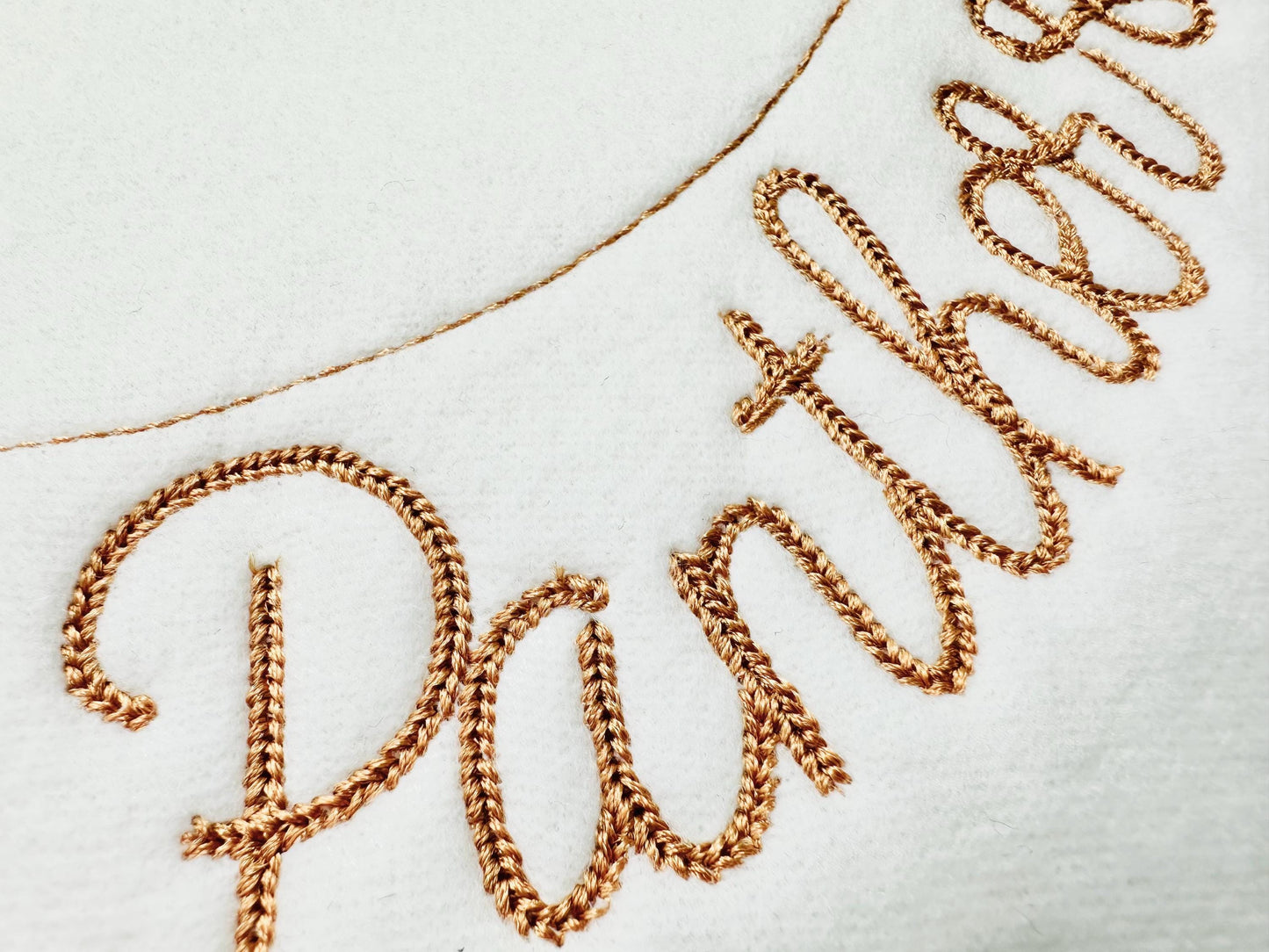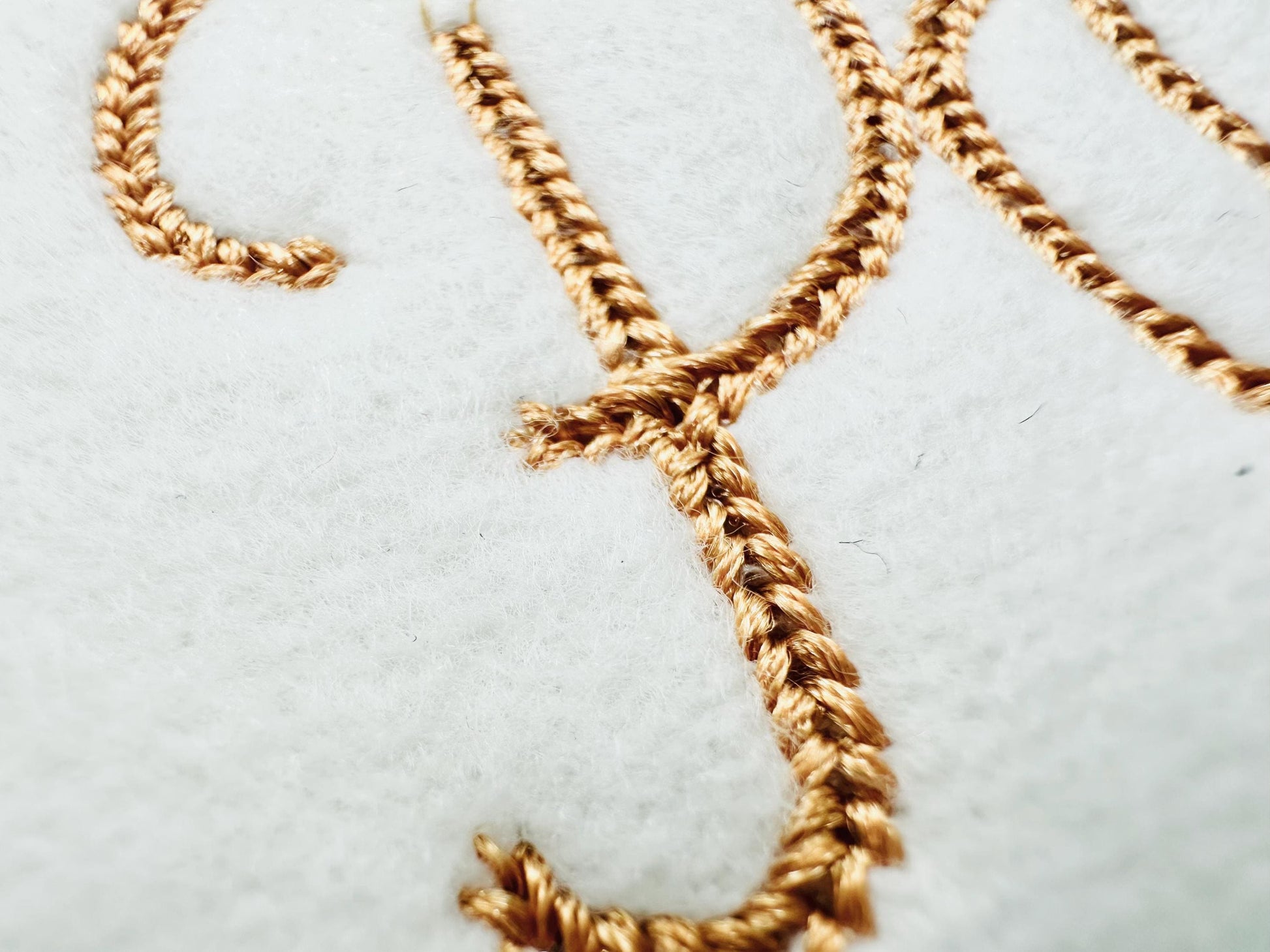
Tiny Chain Font Sandy
Or click to open the linkSandy, a tiny handwritten chain font. Sweet for kids' names along necklines, sleeves and small gifts.
Uppercase and lowercase letters, numbers 0 to 9 and punctuation, in five small sizes: 1, 1.3, 1.6, 2 and 2.4 inches.
- Tiny chain script font
- Uppercase and lowercase letters, numbers 0-9, punctuation
- 5 sizes, 1 to 2.4 in